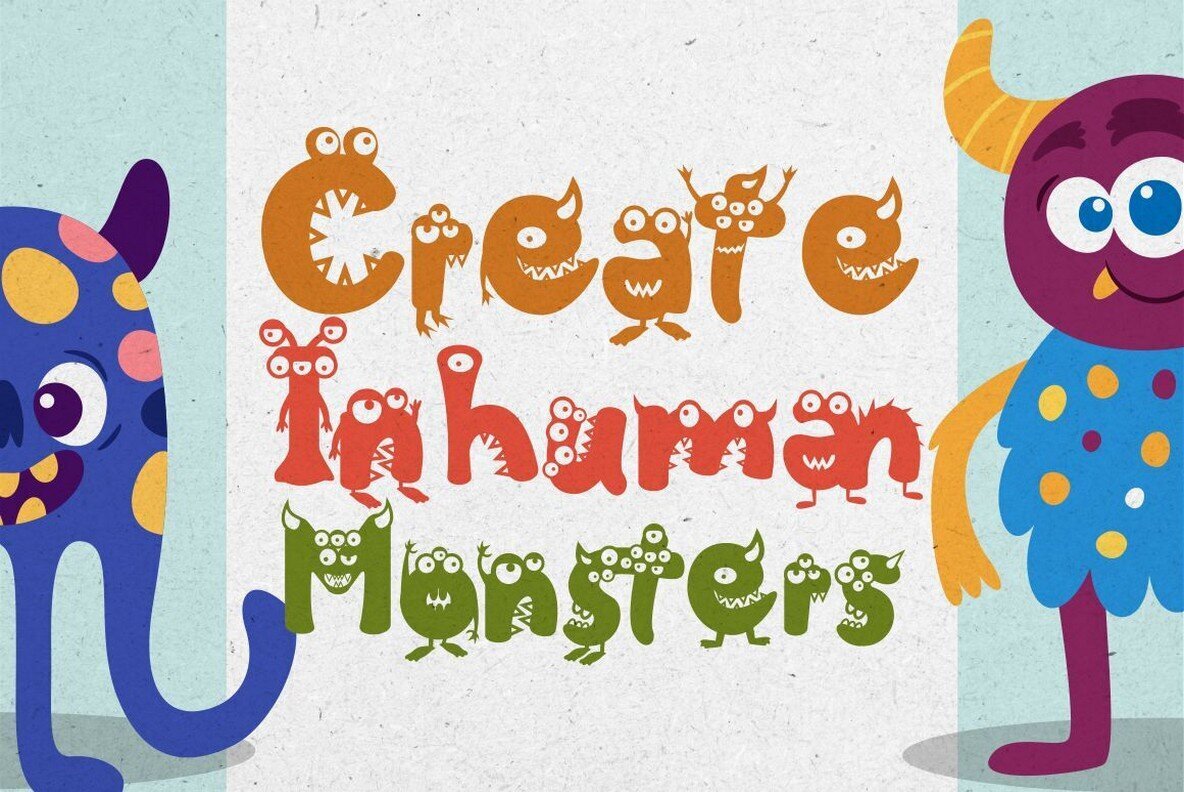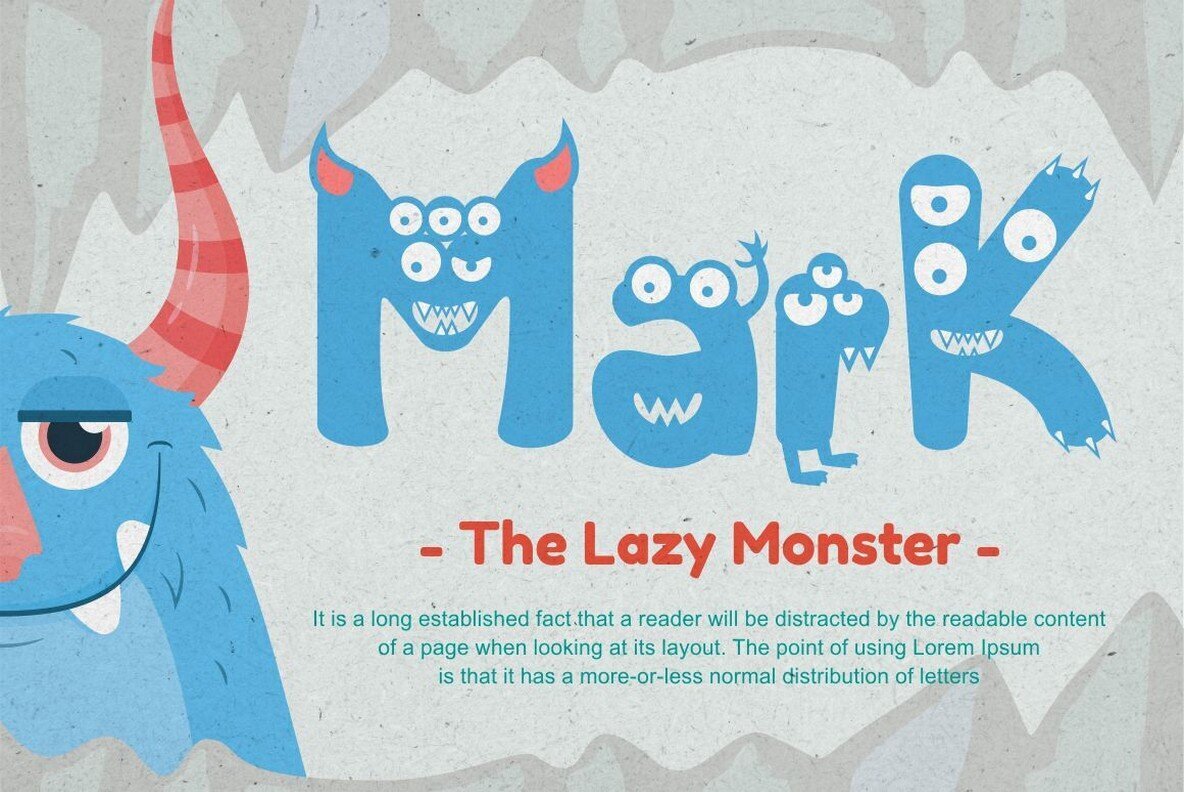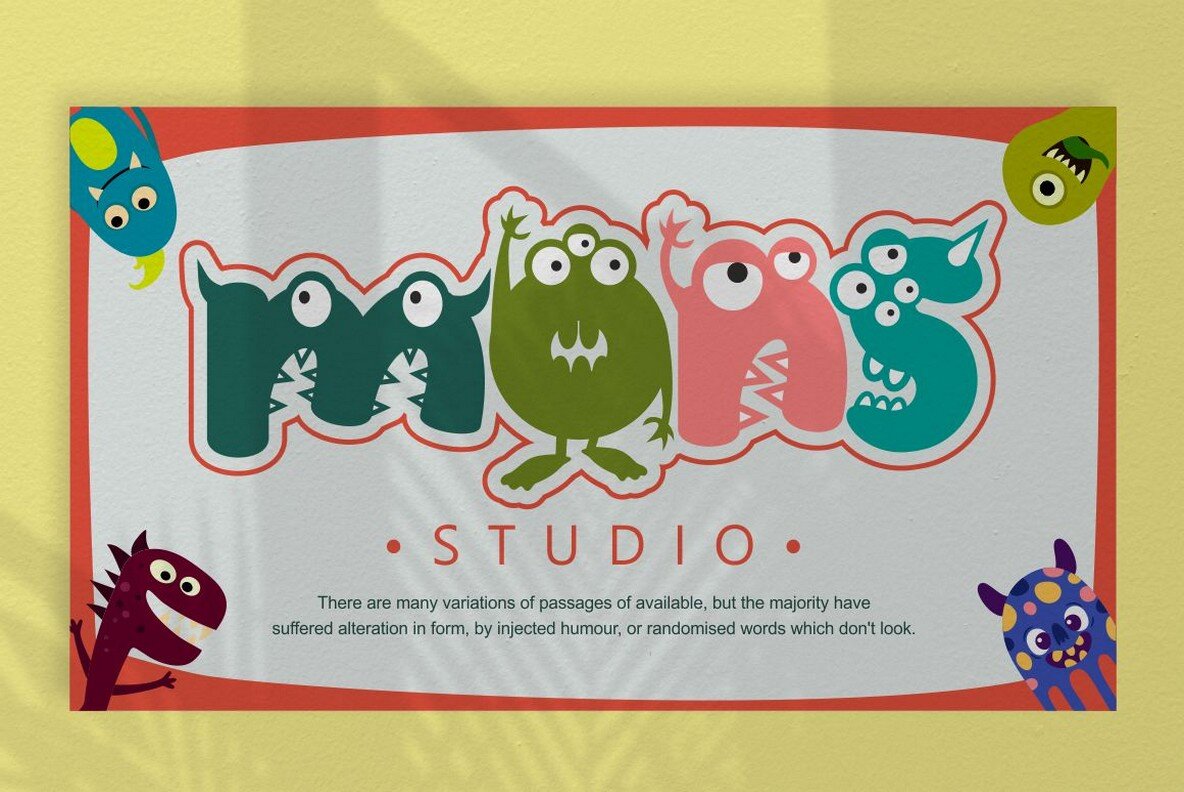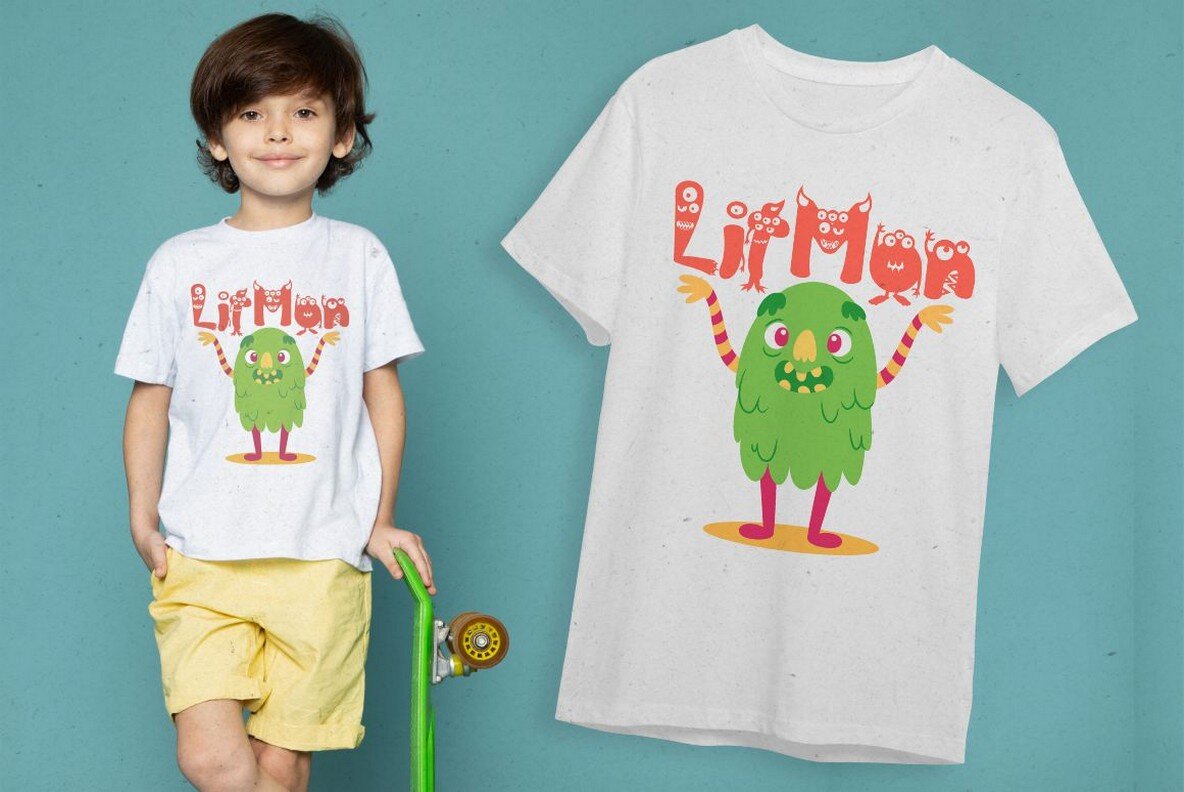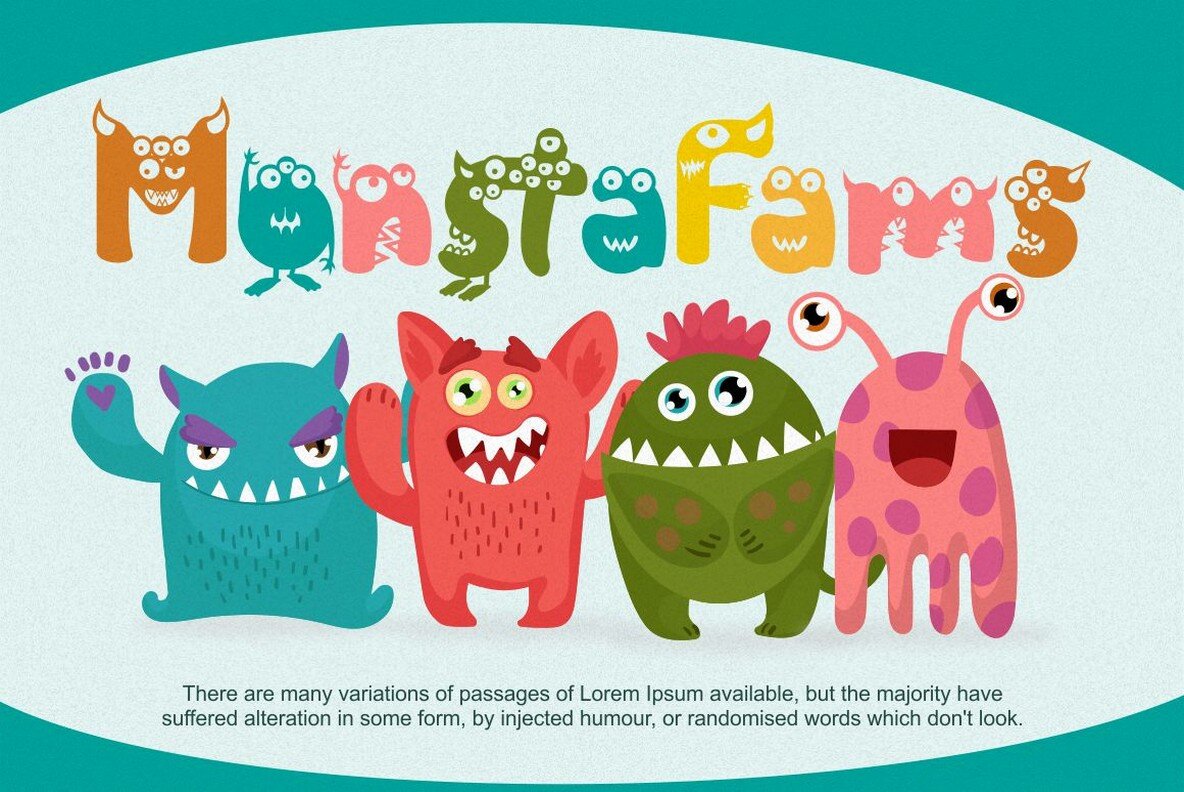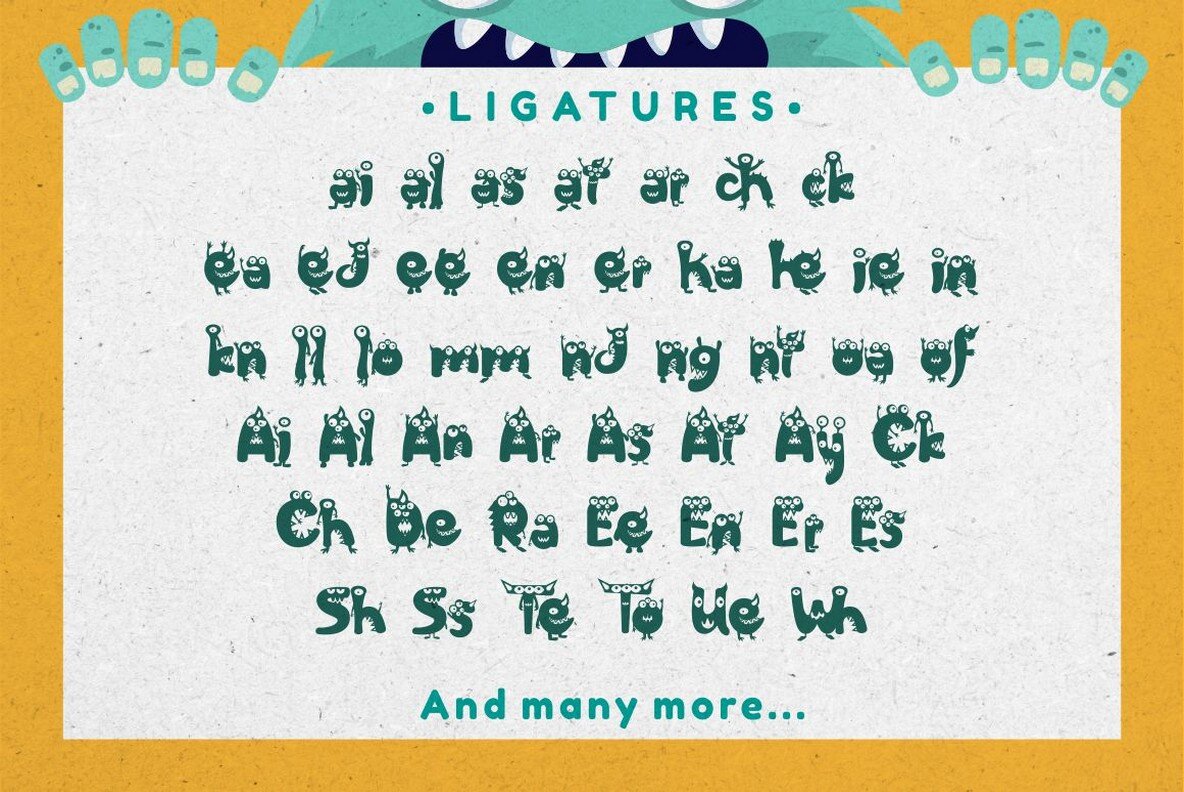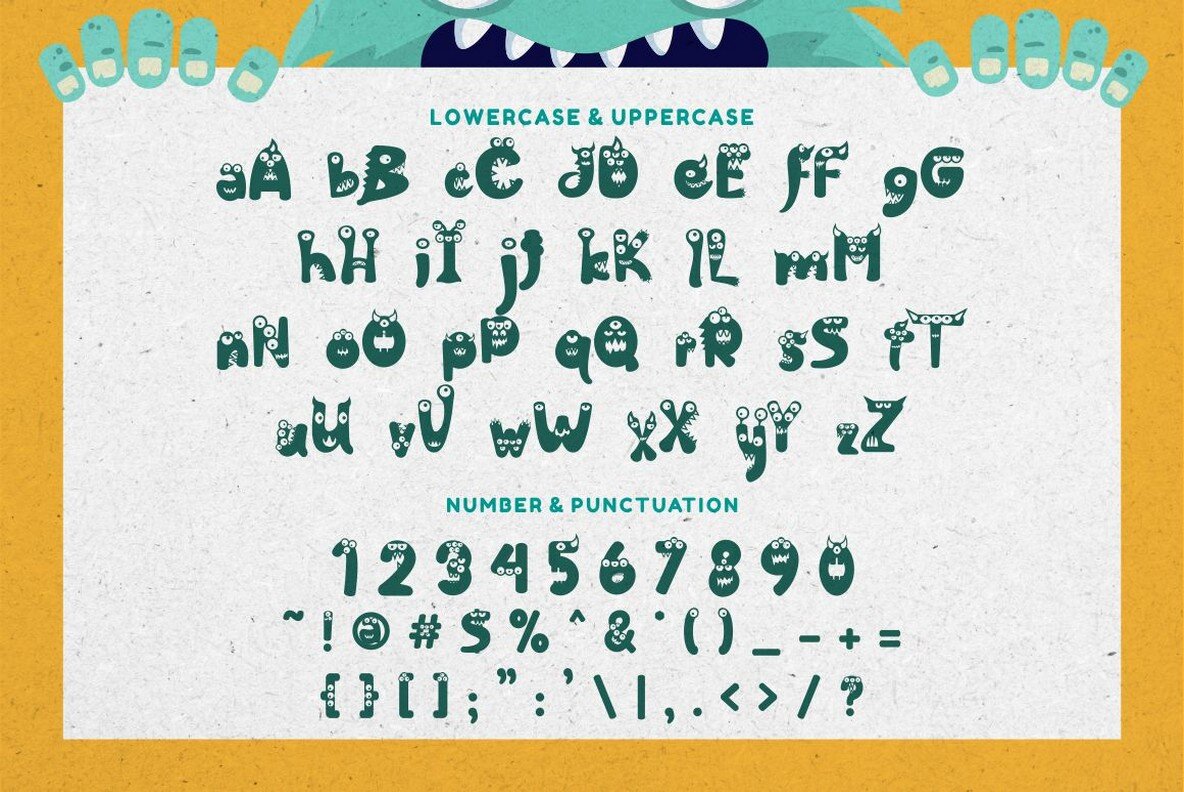
Friendly Monster Font
Friendly Monster
Friendly Monster is an adorable and friendly font that you can use for all sorts of projects. It has the perfect style to make it easy-to read but still express your creativity in whatever design needs you may have!